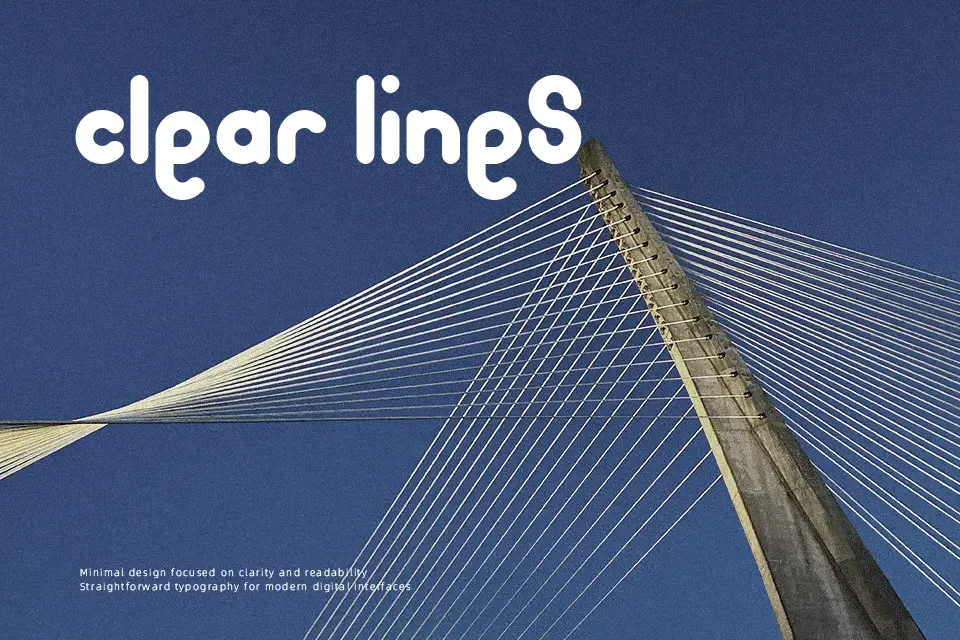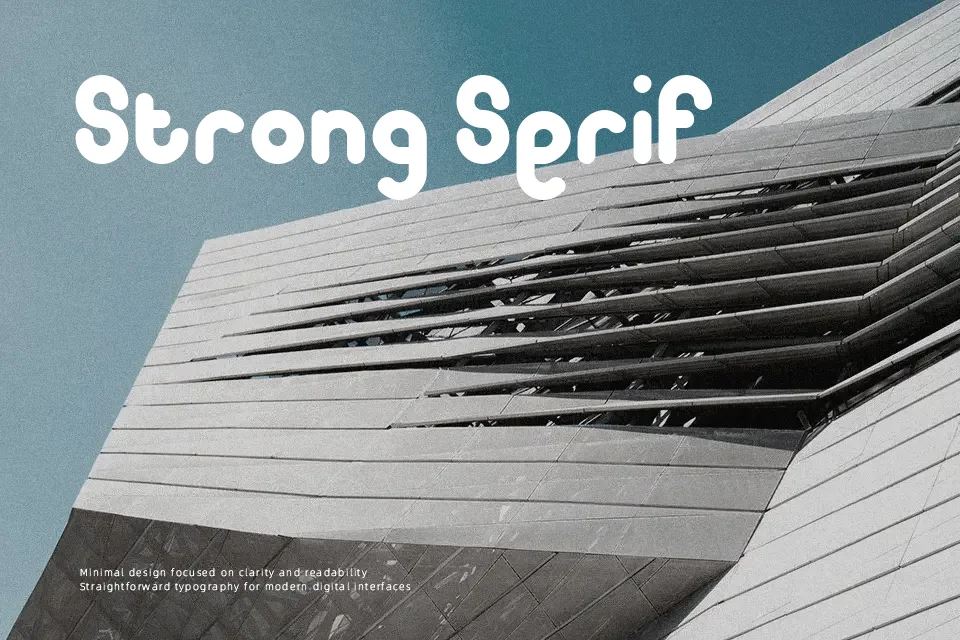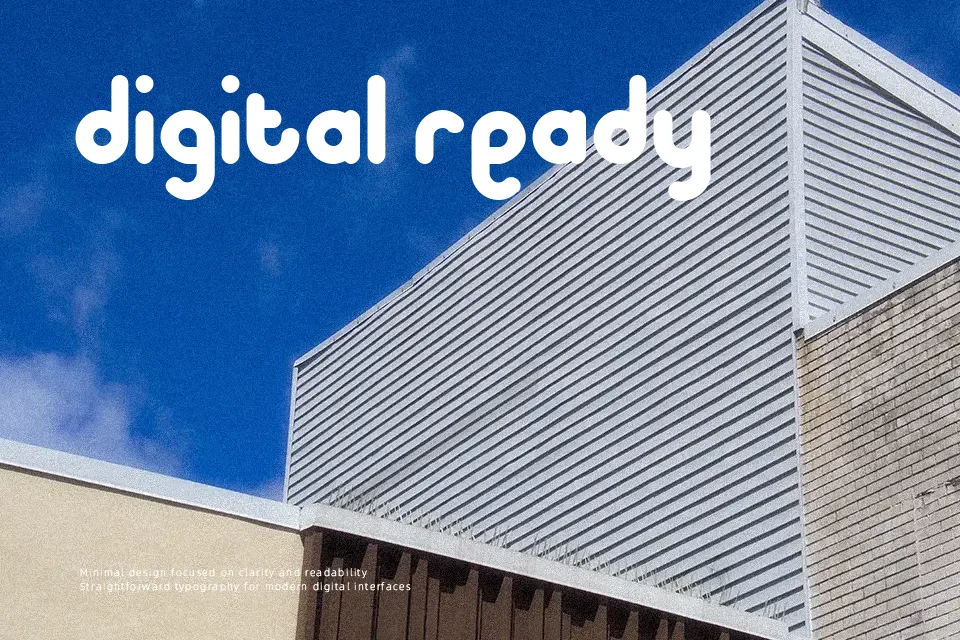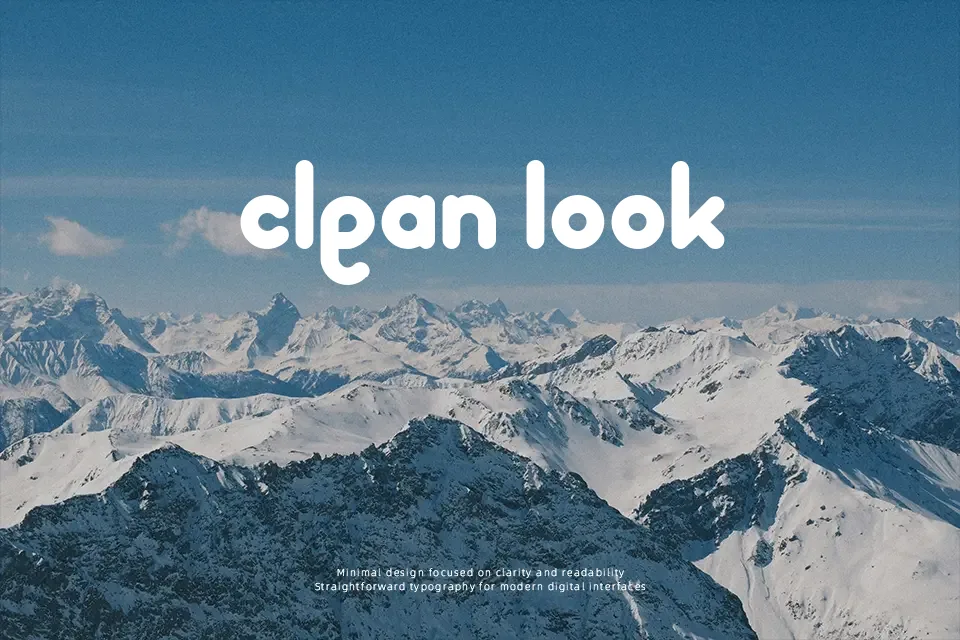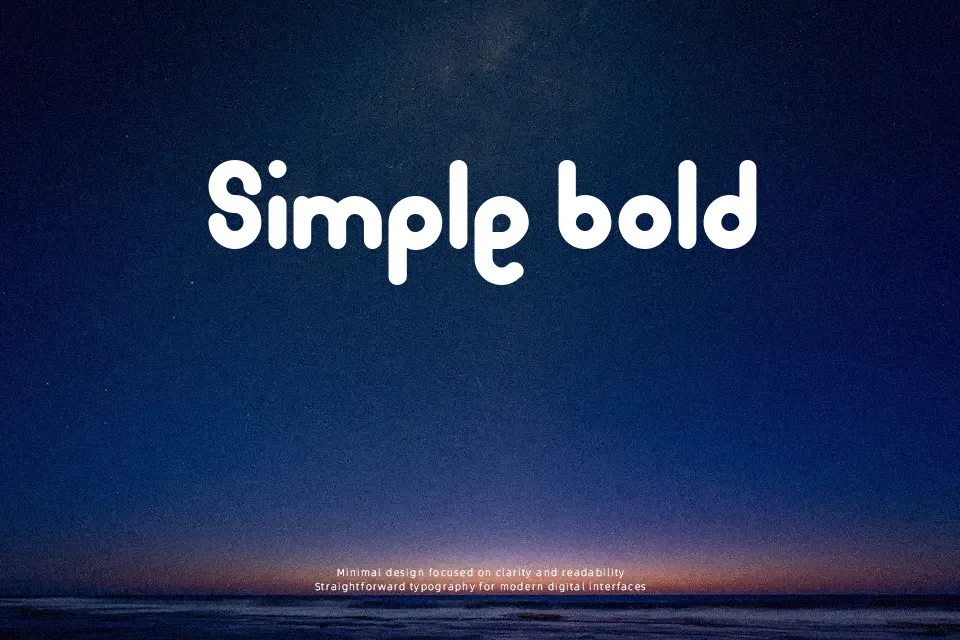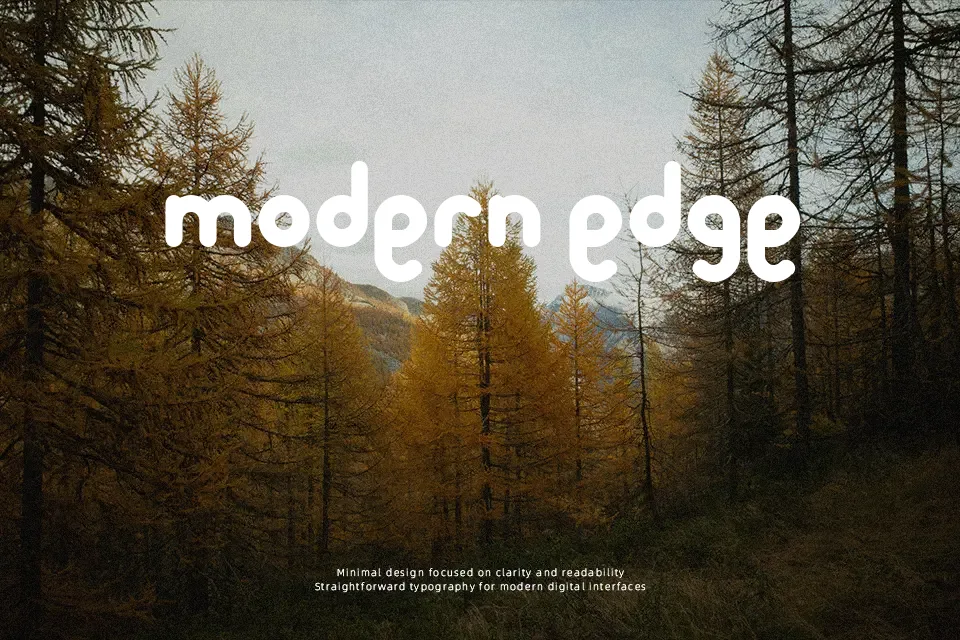
Pooplatter Font
Pooplatter Font introduces a bold, bubbly structure characterized by heavily rounded terminals and uniform stroke weight. The letterforms display a compact but balanced spacing rhythm that maximizes visual impact in large display settings. With its smooth curves and low-contrast proportions, the typeface performs exceptionally well in casual branding, toy packaging, and lively festival posters. The thick strokes maintain strong visibility in headlines, adding a friendly, approachable energy to the design. However, these dense, heavy forms reduce continuous reading comfort, making the design less suitable for long paragraphs. Overall, the consistent curves help maintain clarity in short, energetic titles while fully embracing a groovy, playful aesthetic.
children’s book covers, casual toy packaging, lively party invitations, informal social media graphics
dense editorial layouts, long paragraph text, small interface labels
Perfect for headline, kids, and logo, with a friendly and cartoon style.